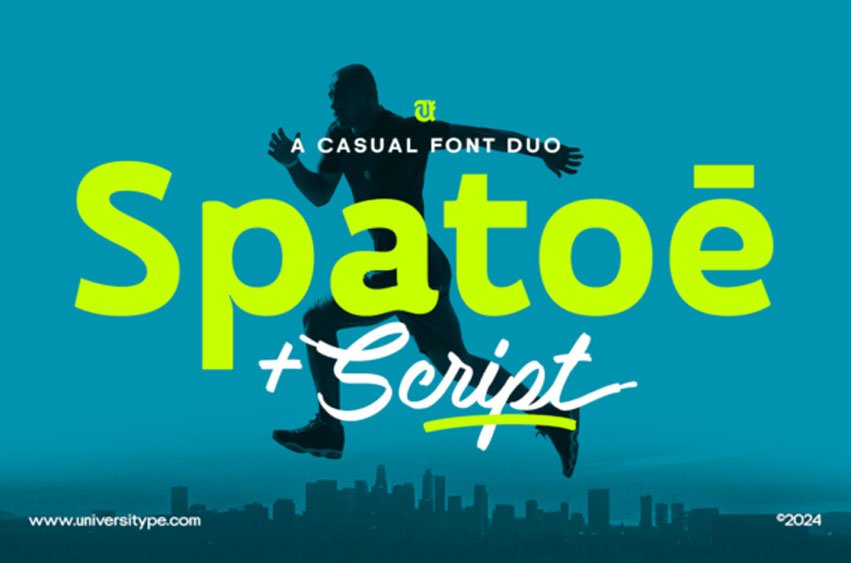
Spatoe Font Dive into the dynamic world of UT Spatoe Font Duo. Seamlessly merging contemporary concept with a gentle undertone of narrative, UT Spatoe redefines boldness. Fusing inspiration from a shoe sole, UT Spatoe Sans presents a perfect balance of bold, clear structure and modern sans-serif, making it distinctively crisp.
In contrast, the UT Spatoe Script is a perfect representation of a shoelace’s fluid grace, an intricately handcrafted design dripping with expressivity. Individually unique, yet when paired, they present an unparalleled balance between personality and precision, an ideal fit for projects that crave distinct neuronal tones.
Designers, brand strategists, and creatives seeking to dip their projects into a pool of audacious flair, this is your pick! Be it crafting radical branding strategies or injecting warmth into your editorial formats, the duo proves to be multifaceted.
Sprinkling creativity, the font adds a stash of alternate characters, stylistic alternates, and ligatures for personalized lettering layouts. The foundation of the design captures the essence of sneakers, the structured anatomy of soles, intertwined with the organic curves of shoelaces signifying movement, creativity, and functionality.
Perfect branding strategies for footwear, lifestyle, or fashion brands. Amplify the appeal of your marketing materials, campaigns, posters, and ads. Or add a sophistication to your website’s headers, navigation, and blogs. Even give your product packaging a memorable impression. The possibilities are endless.